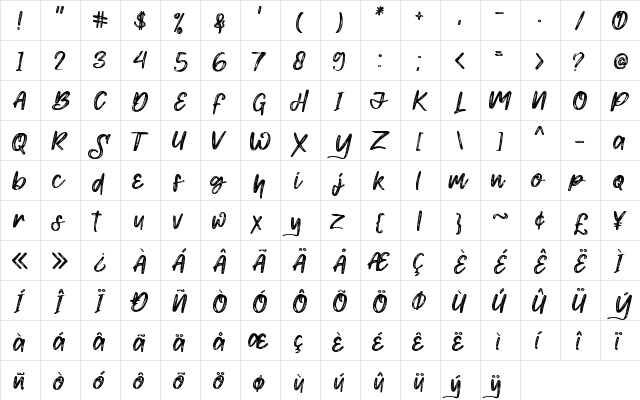
Smith mouth Regular
Design Context for Smith mouth Typeface
Smith mouth is a composed and adaptable typeface that performs quietly and consistently across a wide range of design contexts.